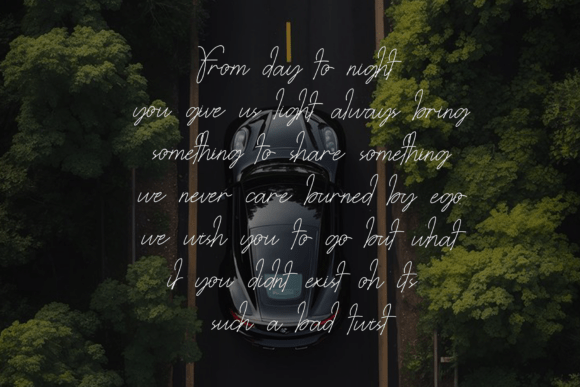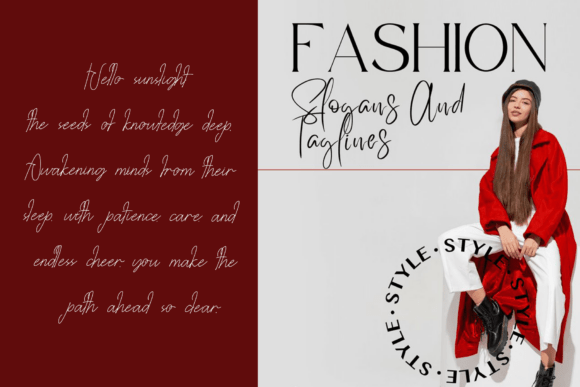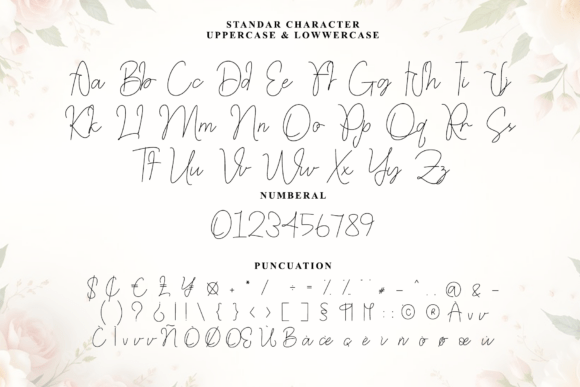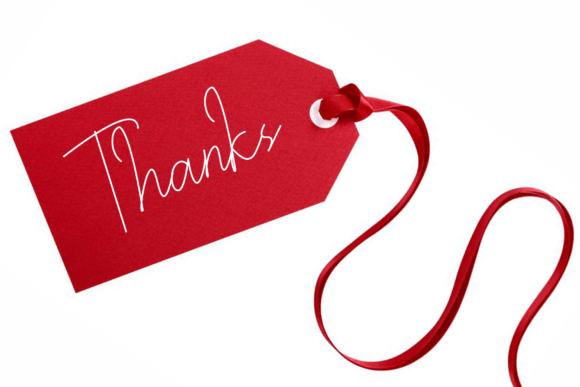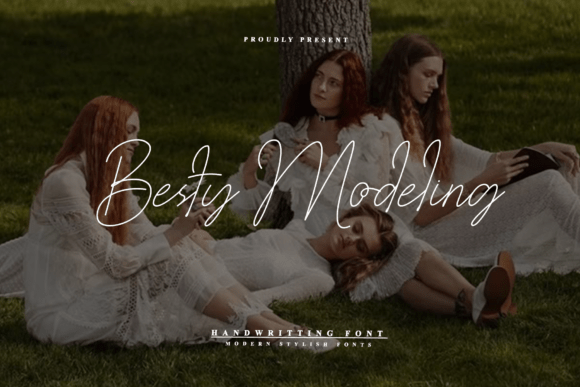
The Quest for the Perfect Font: Discovering Besty Modeling
I still remember the frustration of working on a custom sublimation design project, searching for that one perfect font that would bring the entire design together. My client wanted a feminine, professional, and slightly romantic touch, but I was coming up blank. That’s when I stumbled upon Besty Modeling, a beautiful handwritten script font that instantly caught my attention. In this article, I’ll share my experience with Besty Modeling, its features, and how to make the most of it in your designs.
A First Impression: What I Love About Besty Modeling
Besty Modeling is a game-changer for anyone looking for a stylish and functional handwritten script font. Here are a few things that I absolutely love about it:
• ✨ Smooth, fluid strokes and lovely ornamental curves give it a feminine and professional touch.
• ✅ Consistent weight and clean connections ensure excellent legibility, even at smaller font sizes.
• 💫 The font features a beautiful, stylized aesthetic that’s perfect for custom sublimation designs, boutique branding, and personalized gifts.
While Besty Modeling is an excellent font, it’s not without its limitations. Here are a few things to keep in mind:
• 🤔 The font may not be suitable for very large or very small font sizes, as some details may get lost.
• ⚠️ As with any script font, it’s essential to use it in moderation and balance it with other design elements to avoid overwhelming the design.
Practical Guide: Using Besty Modeling in Your Designs
The Story Behind Besty Modeling
Besty Modeling was designed with the intention of creating a beautiful, feminine script font that’s both elegant and functional. The designer aimed to create a font that would be perfect for custom sublimation designs, boutique branding, and personalized gifts. With its smooth strokes and lovely ornamental curves, Besty Modeling is sure to bring a touch of sophistication to any design project.
What is the best use for Besty Modeling? Besty Modeling is perfect for custom sublimation designs, boutique branding, personalized gifts, custom stationery, and any project that needs a clean, highly stylized, and beautifully functional handwritten script.
Is Besty Modeling suitable for large font sizes? While Besty Modeling can be used at larger font sizes, it’s best to use it in moderation and balance it with other design elements to avoid overwhelming the design.
Does Besty Modeling support OpenType features? Yes, Besty Modeling supports OpenType features, including ligatures, stylistic alternates, and glyphs.